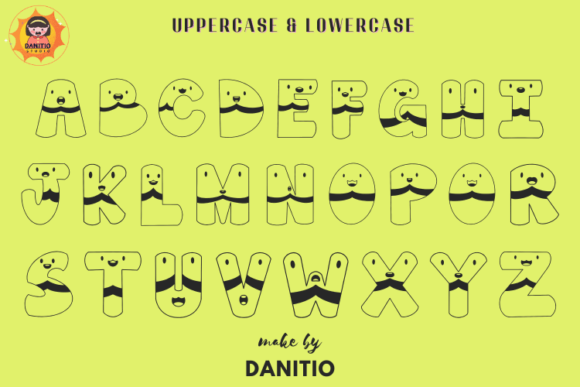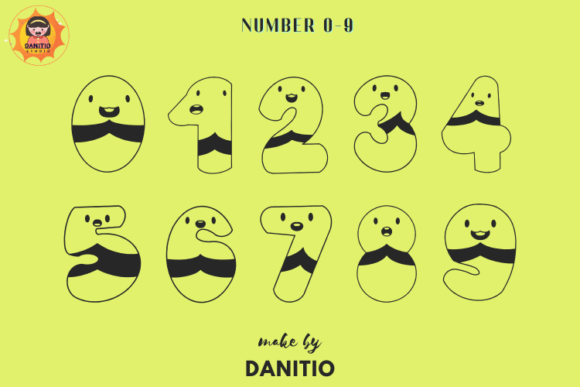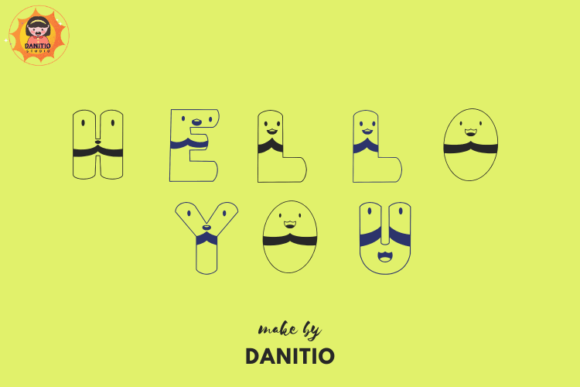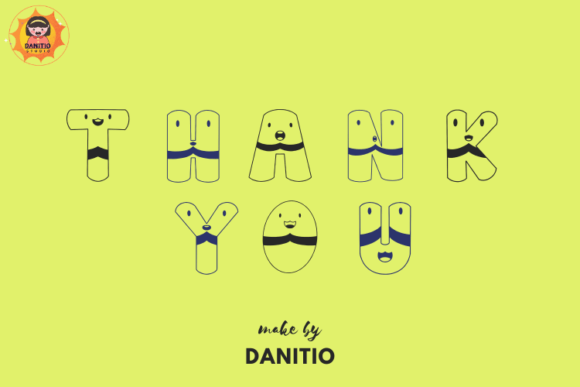
The Power of Good Font: Elevate Your Design with a Cute and Gentle Display Font
As a designer or crafter, you’re constantly on the lookout for the perfect font to add a touch of personality to your work. Look no further than Good Font, a delightful and charming display font that’s sure to make your projects stand out. With its cute and gentle aesthetic, Good Font is perfect for embellishing and combining pieces with your products, resulting in a sweeter and more endearing finish.
What Makes Good Font So Special?
Good Font is a versatile and playful font that’s specifically designed to add a touch of whimsy to your designs. Its unique charm makes it perfect for a wide range of projects, from kids’ materials and worksheets to tutorials, invitations, inserts, packaging, and branding. Whether you’re working on a DIY project or a professional design, Good Font is the perfect choice to add a dash of personality and flair.
The Benefits of Using Good Font
So, what are the benefits of using Good Font in your designs? Here are just a few:
• Cute and Gentle Aesthetic: Good Font has a sweet and endearing quality that’s sure to capture the hearts of your audience. Its gentle curves and playful strokes make it perfect for designs that require a touch of whimsy.
• Versatility: Good Font is a versatile font that can be used in a wide range of projects, from kids’ materials to professional branding.
• Ease of Use: Good Font is easy to read and use, making it perfect for designs that require a clear and legible font.
• Customization: Good Font can be customized to fit your design needs, allowing you to adjust the size, color, and style to suit your project.
Good Font is a dream come true for designers and crafters who want to add a touch of personality to their work. Whether you’re creating:
• Kids’ materials, such as worksheets, activity sheets, and coloring books
• Worksheets, tutorials, and guides for adults or children
• Invitations, inserts, and packaging for special occasions or products
• Branding projects, such as logos, business cards, or social media graphics
Good Font is the perfect choice to add a dash of whimsy and personality to your designs.
How to Use Good Font in Your Designs
Using Good Font in your designs is easy! Here are a few tips to get you started:
• Pair with Other Fonts: Good Font pairs perfectly with other fonts to create a unique and visually appealing combination.
• Experiment with Sizes and Colors: Try out different sizes and colors to see what works best for your design.
• Add Graphics and Illustrations: Good Font looks great paired with graphics and illustrations, adding an extra touch of personality to your design.